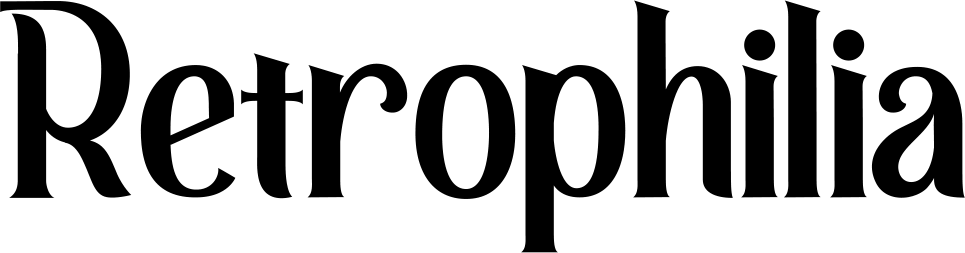
Retrophilia Font
If you want to share a classic mood and feeling of the 90s, you can take advantage of Retrophilia. This retro font is perfect for music covers, movies, magazines, books, and other needs. Download it right now and knock over your clients with a feather. If you want to get more, browse RB right now.